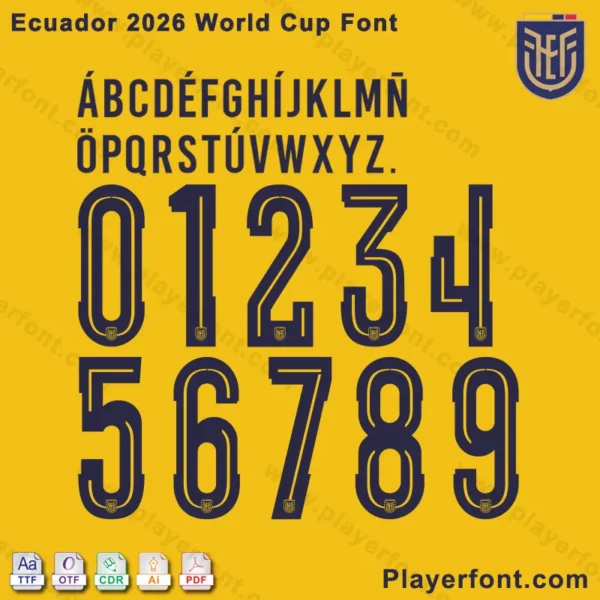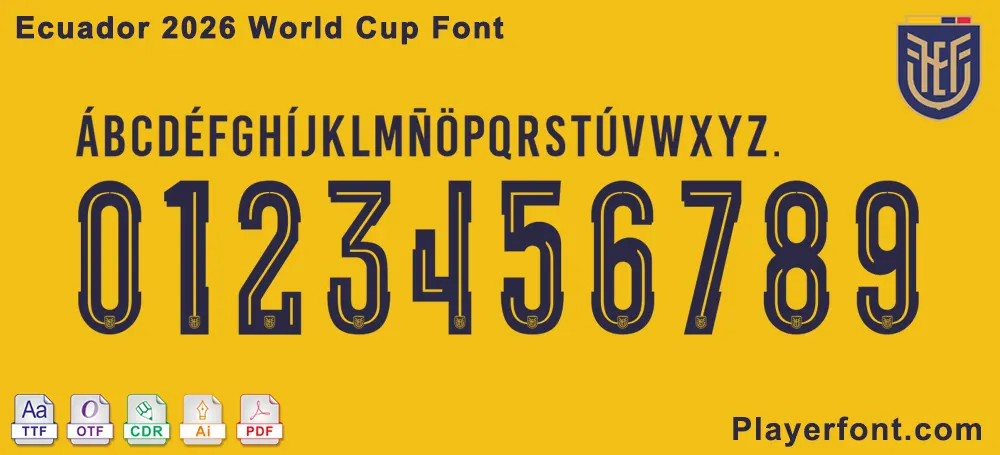
Get ready for the biggest tournament in North America! Download the exclusive Ecuador 2026 World Cup Font, featuring a complete set of vector files. Perfect for custom jerseys, stickers, and signage. Includes TTF, OTF, AI, CDR, and PDF formats for instant use with Cricut, Silhouette, and professional design software.
Ecuador 2026 World Cup font specimen displaying letters, numbers, and available file formats TTF, OTF, CDR, AI, and PDF.
Unleash your creativity and show your support for La Tri with the official-style Ecuador 2026 World Cup Font. Inspired by the dynamic spirit of Ecuadorean football and the energy of the upcoming tournament hosted in the USA, Canada, and Mexico, this versatile typeface is a must-have for fans, designers, and small business owners.
Designed with clean lines and a bold, modern aesthetic, this font perfectly captures the athleticism and pride of the Ecuadorian national team. Whether you are crafting a custom jersey for a local league, creating durable vinyl stickers for your laptop, or designing large-format banners for a watch party, this font delivers professional results.
Complete character map of the Ecuador 2026 World Cup font showing uppercase letters, numbers, and symbols.Complete alphabet and numerals in the Ecuador 2026 World Cup font.Ecuador 2026 World Cup Font Pack Download